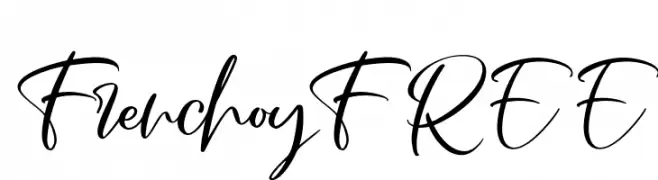
A classic and elegant script font with fluid, connected letterforms.
A sophisticated, elegant handwritten font with fluid, cursive letterforms and dynamic contrast.
An elegant, flowing script font with smooth, cursive strokes and artistic swashes.
A fluid and elegant script font with a natural handwriting style.
A playful, modern script font with dynamic curves and a handwritten feel.